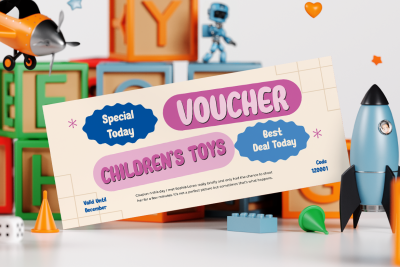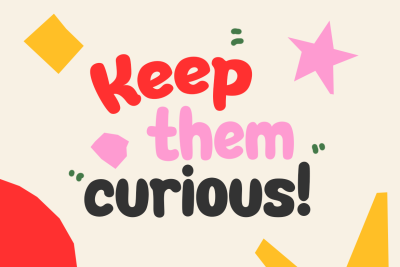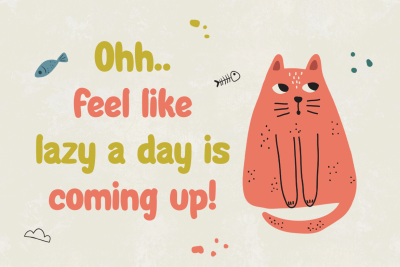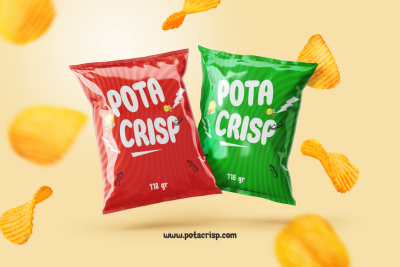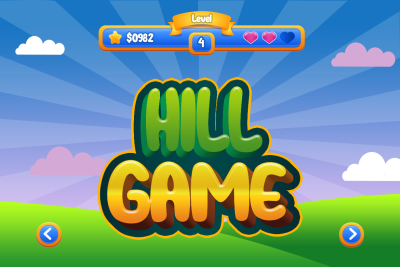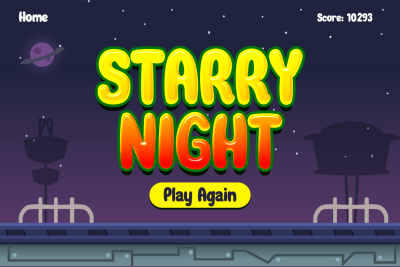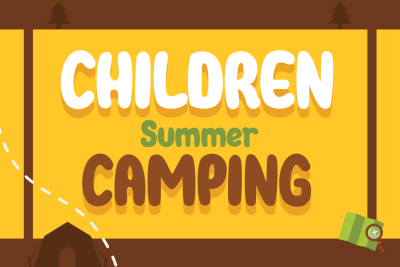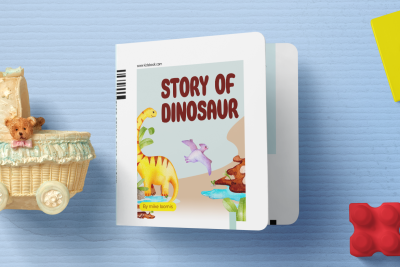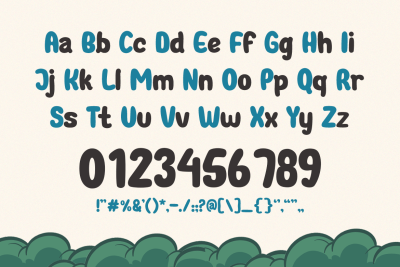
Kids font Harys World is a cheerful and inviting typeface created specifically for young audiences and playful projects. It features smooth, rounded letters with a friendly and positive appearance. Additionally, its hand-drawn style adds natural charm and whimsy, making it warm and approachable. Moreover, the bold yet simple letterforms ensure great readability while maintaining a fun and vibrant look.
Furthermore, this font pairs well with bright, colorful themes and brings a playful touch to any layout. Whether you are designing for childrenโs media, educational materials, or branding projects, Harys World adapts beautifully to your needs. It strikes a perfect balance between style and clarity, making it effective for both print and digital formats.
Overall, Kids font Harys World combines creativity and functionality, enhancing any project with a joyful and lively personality.
Harys World is perfect for designers, educators, and content creators working on projects for kids and families. For instance, it works beautifully in childrenโs books, story covers, and illustrations. Its playful and imaginative design is ideal for engaging young readers. Additionally, it suits party invitations, banners, and greeting cards, adding a fun and friendly vibe.
Moreover, educators benefit from Harys World when creating engaging posters, worksheets, and activity sheets for the classroom. As a result, it makes learning materials more interactive and exciting for students. Similarly, it works well for brands targeting kids, such as toys, educational tools, or kid-friendly advertisements. Its charm helps brands build trust and connection with young audiences.
Content creators, such as vloggers or bloggers, can also take advantage of this font for thumbnails, headers, and social media graphics. It adds a vibrant and welcoming feel to family-focused content. In addition, event organizers promoting kid-friendly events will find Harys World ideal for flyers, decorations, and promotional materials.
In summary, Kids font Harys World is a versatile and approachable typeface. It is perfect for anyone who wants to add warmth and playfulness to their projects while keeping them visually appealing and easy to read.